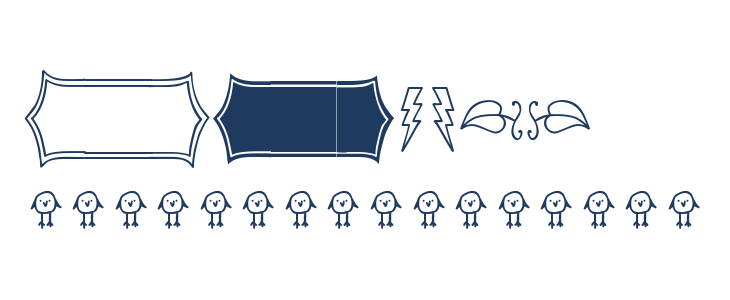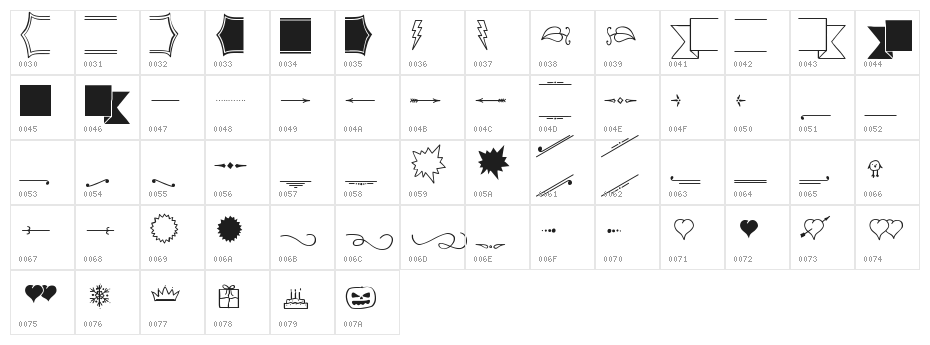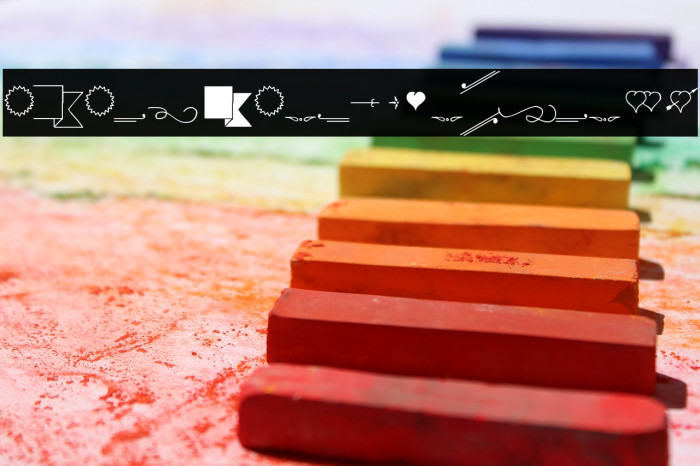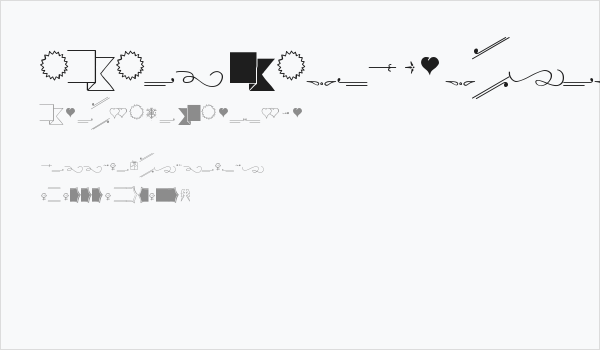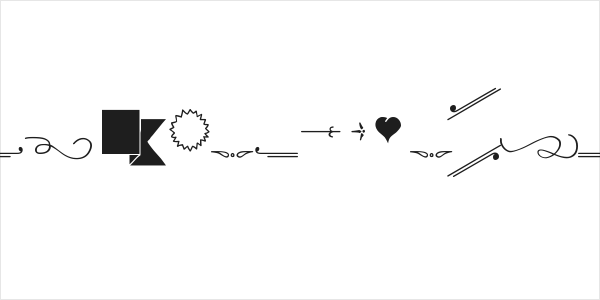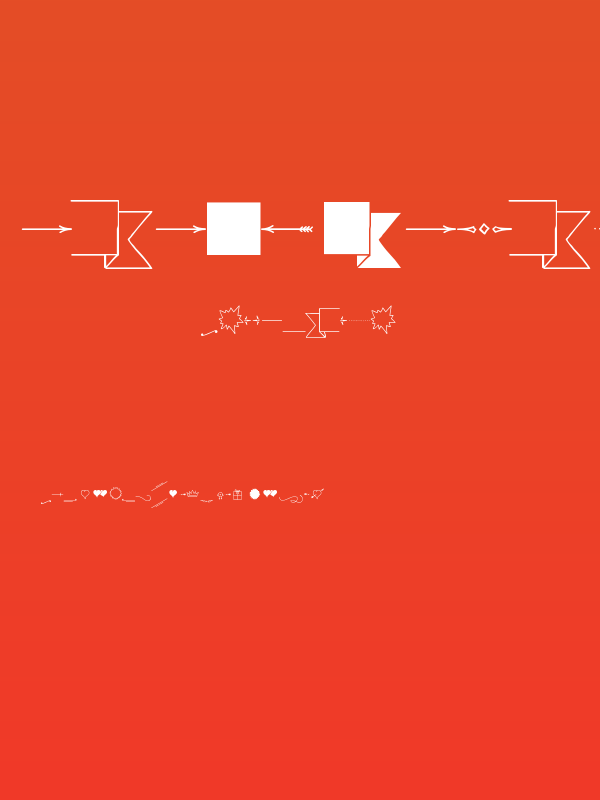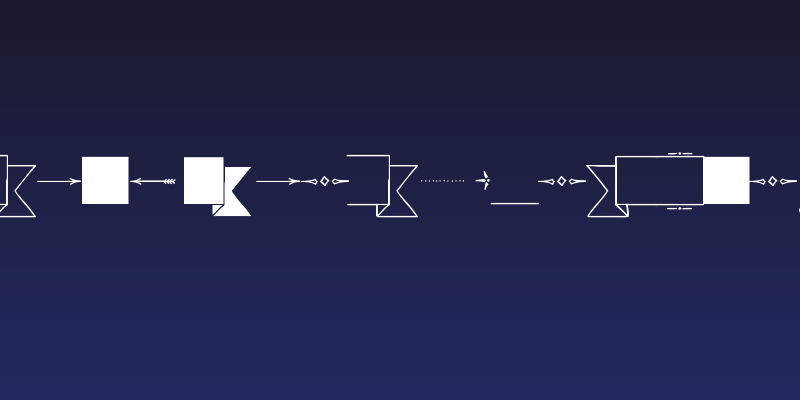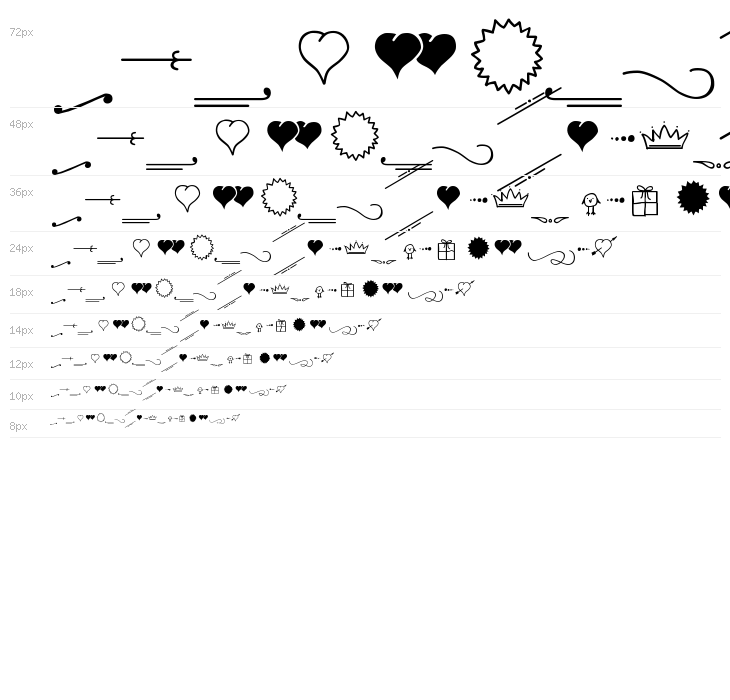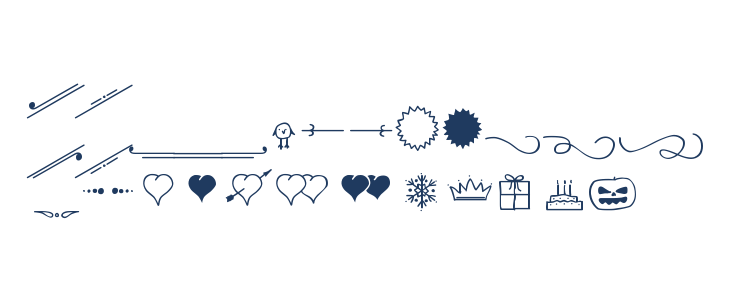
iCiel Finch Ornaments Font
iCiel Finch Ornaments Description
This collection of ornaments features a diverse array of decorative elements, including banners, arrows, stars, and various symbols like hearts, crowns, and gift boxes. The designs are intricate and playful, with a mix of solid and outlined styles. The elements are suitable for embellishing documents, creating borders, or adding decorative touches to graphic projects. The style is versatile, allowing for both modern and classic applications. The ornaments include both symmetrical and asymmetrical designs, providing a wide range of creative possibilities.
| Use Case | Logos, Decorative elements, Graphic design |
| Proposed Projects | Ideal for greeting cards, invitations, scrapbooking, and decorative borders in graphic design projects. |